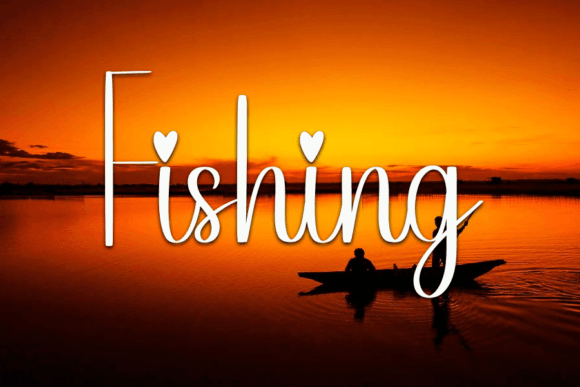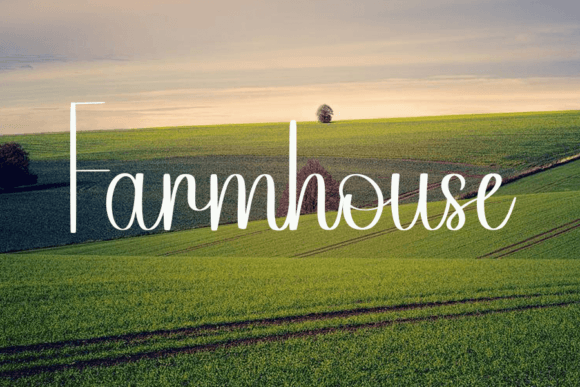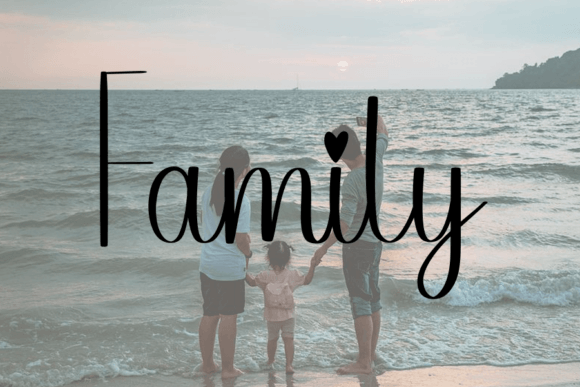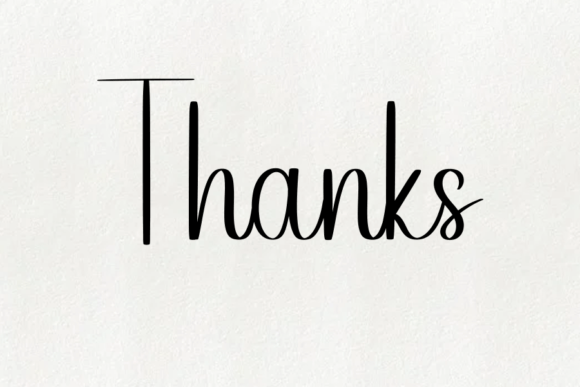
Pudding Font
About Pudding Font
“Pudding Font: Simple Handwritten Elegance for Versatile Designs
Introducing Pudding, a simple handwritten font designed to bring a touch of elegance to your projects. This versatile font spans a wide spectrum of applications, making it suitable for greeting cards, headlines, and various creative endeavors. With its simple and natural feel, Pudding is more than just a font—it’s a design companion that adds effortless charm to your next project.
The simplicity of Pudding makes it adaptable and versatile for a range of design applications. Whether you’re working on greeting cards, headlines, posters, or any other creative project, Pudding seamlessly adds a natural and handwritten touch to enhance the aesthetics of your designs.
For greeting cards, Pudding becomes a stylistic choice, adding a touch of simplicity and warmth to your messages. The font’s straightforward elegance is perfect for creating visually appealing and heartfelt cards.
In headlines and titles, Pudding brings a sense of natural charm and effortless beauty, making your text stand out with simple yet elegant flair. The font’s versatility ensures that it complements various design styles.
Pudding’s adaptability extends to various digital and print materials, making it suitable for a broad range of creative endeavors. The font’s simple and natural feel enhances the overall aesthetics, creating a visually pleasing experience.
In conclusion, Pudding is more than just a font; it’s a design companion that brings simple handwritten elegance to your creative toolkit. Let Pudding be the brushstroke that enhances the beauty of your projects. Embrace the versatility and charming simplicity of Pudding, and watch as it transforms your ideas into visually enchanting experiences.”